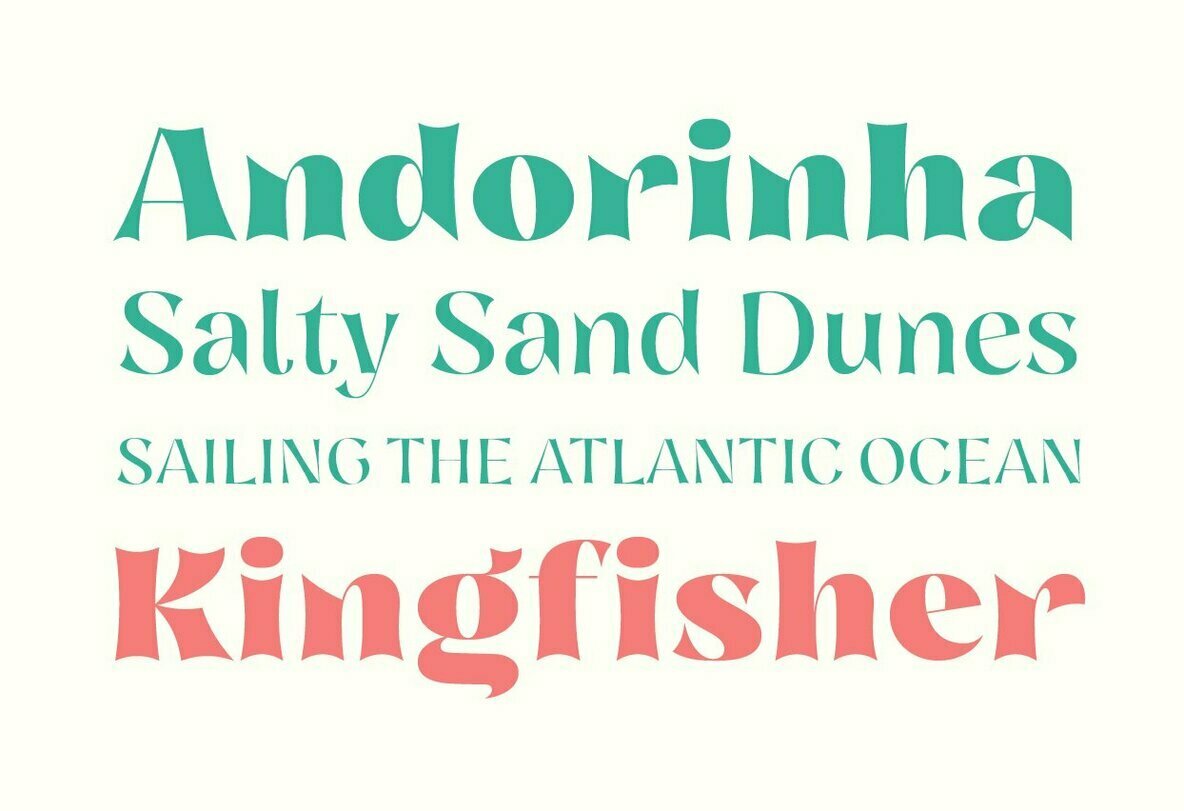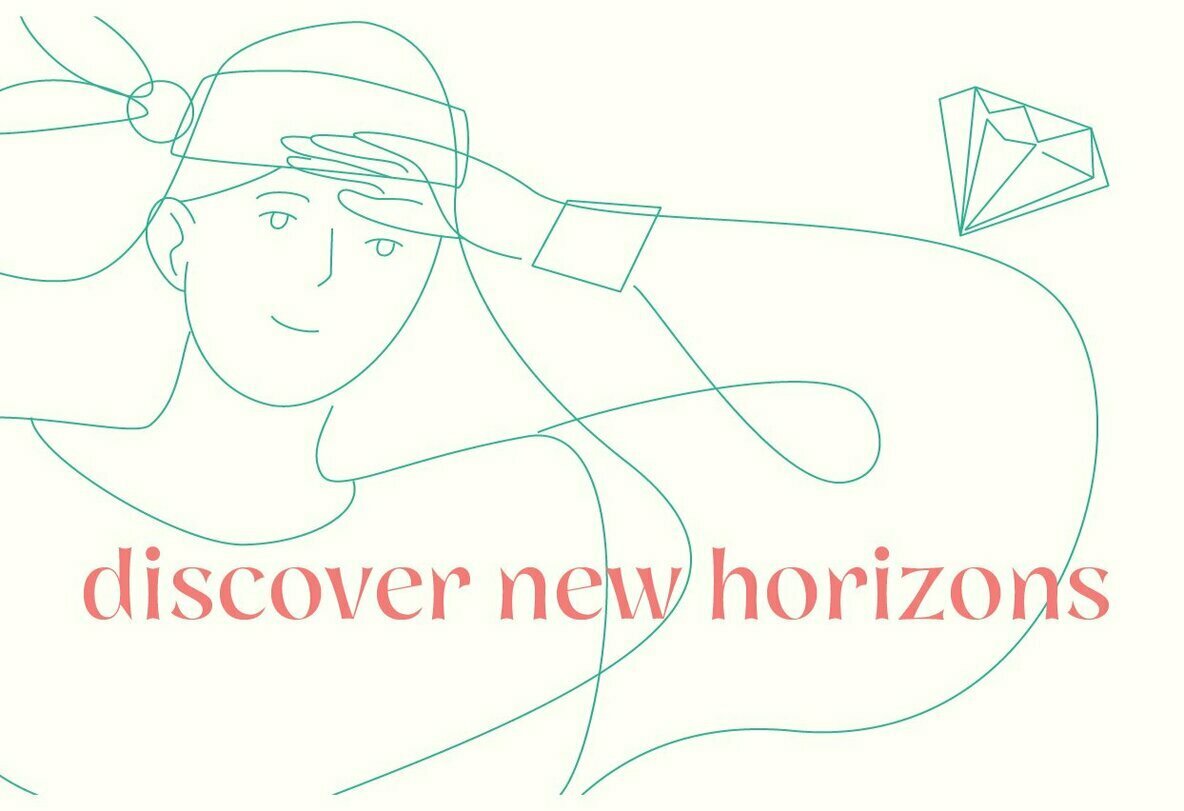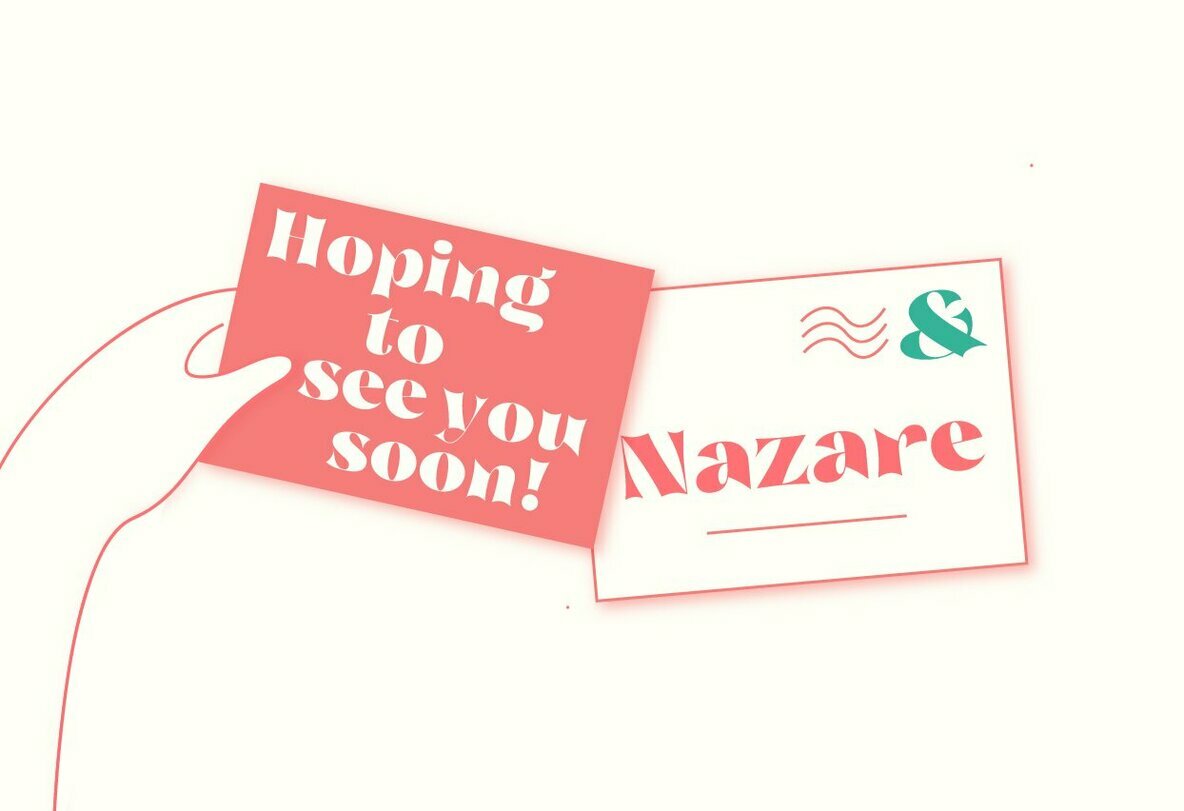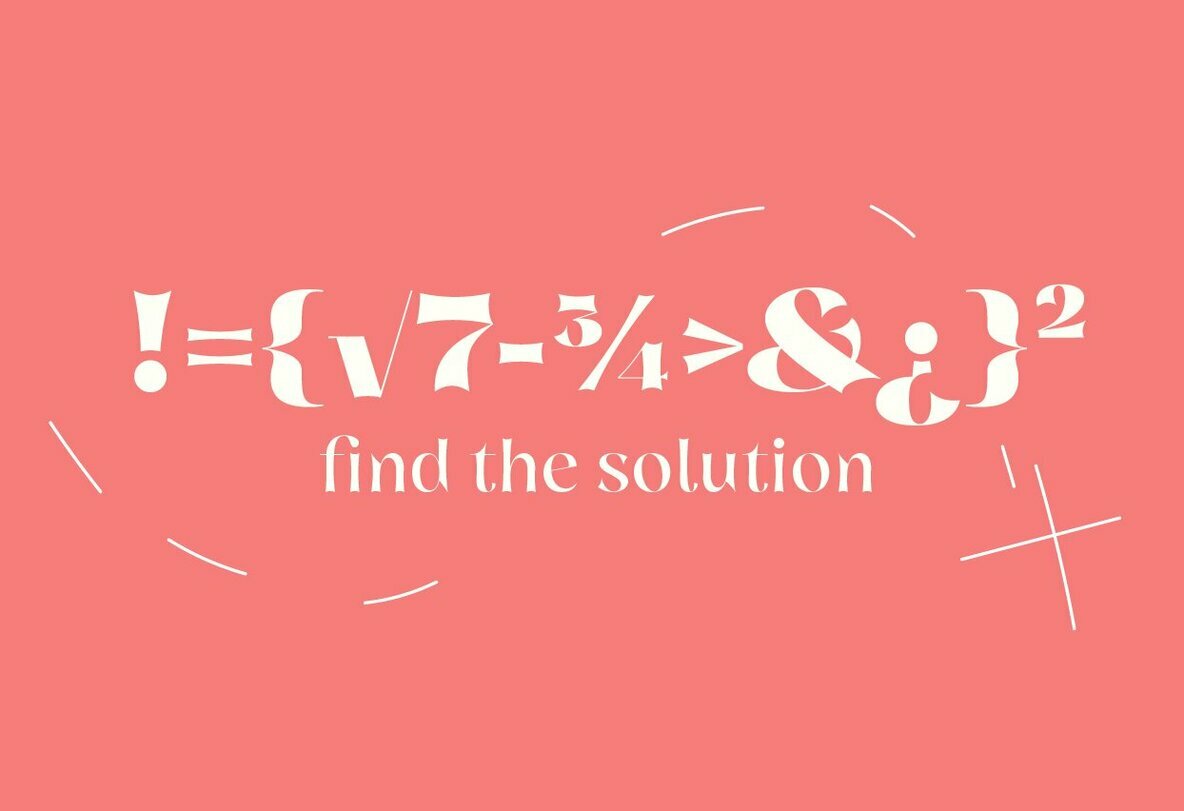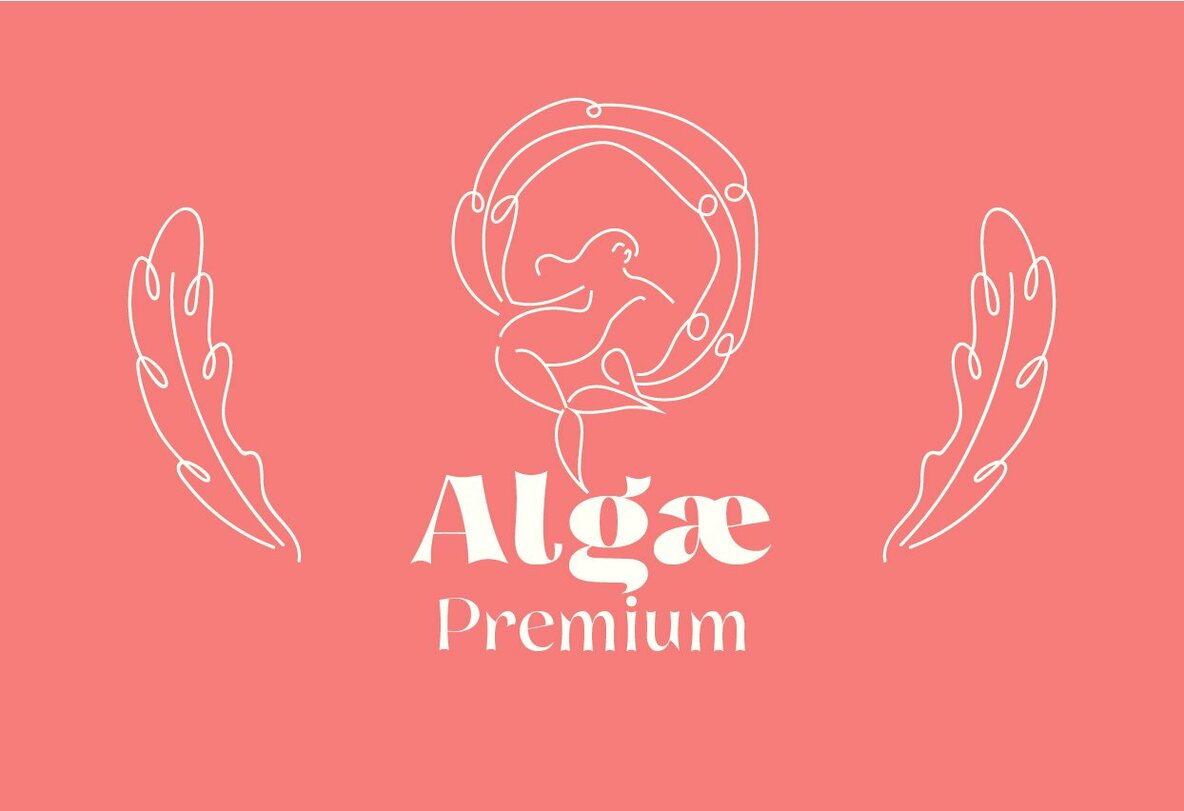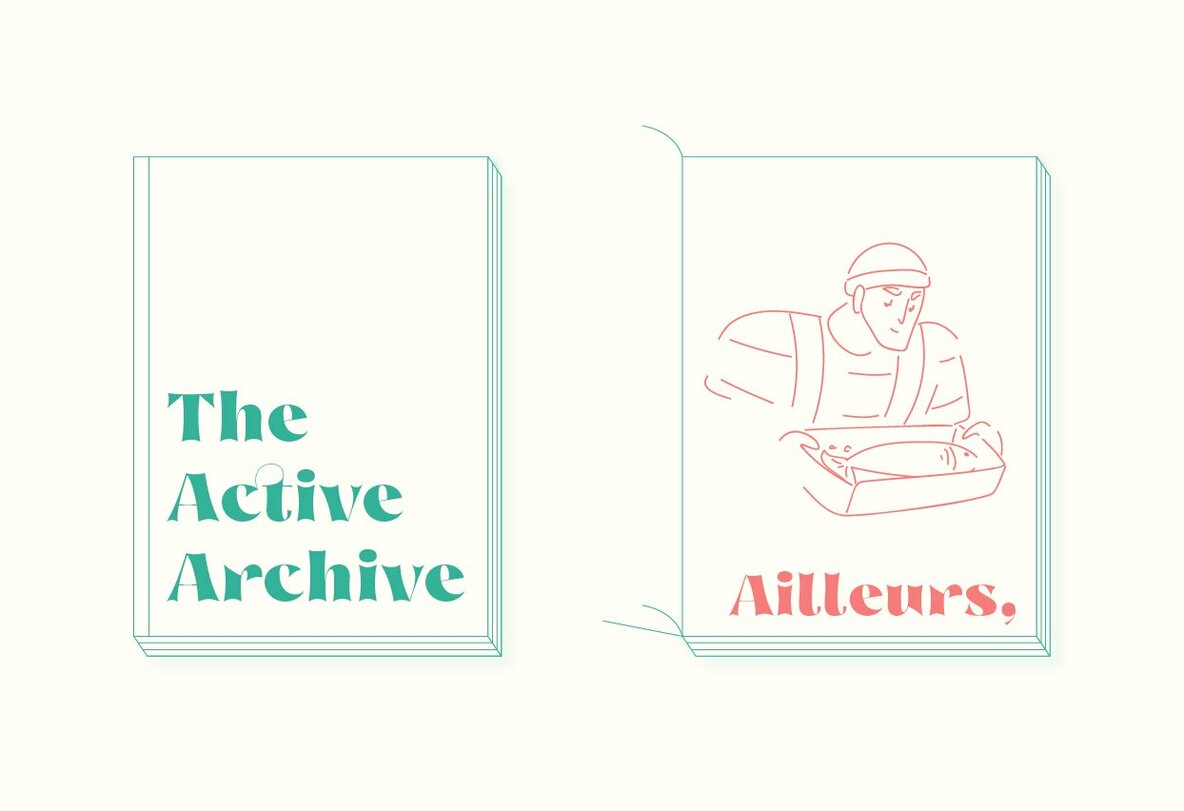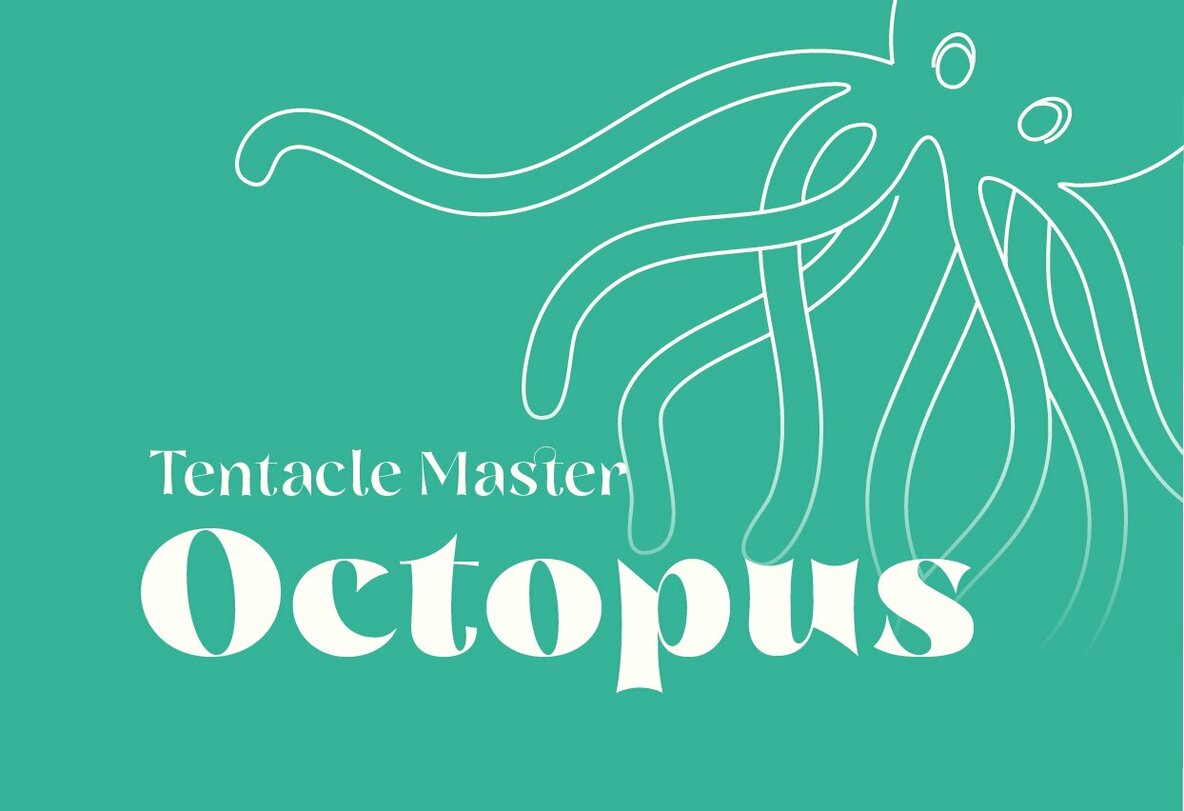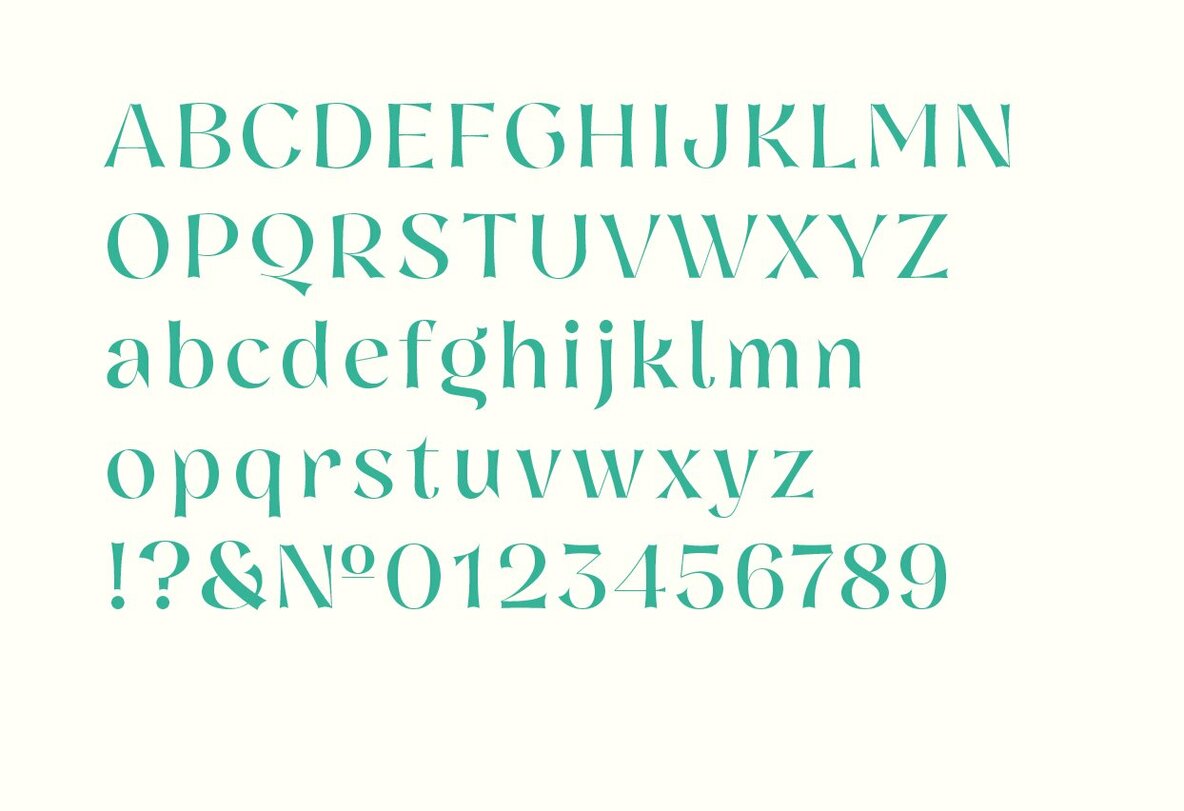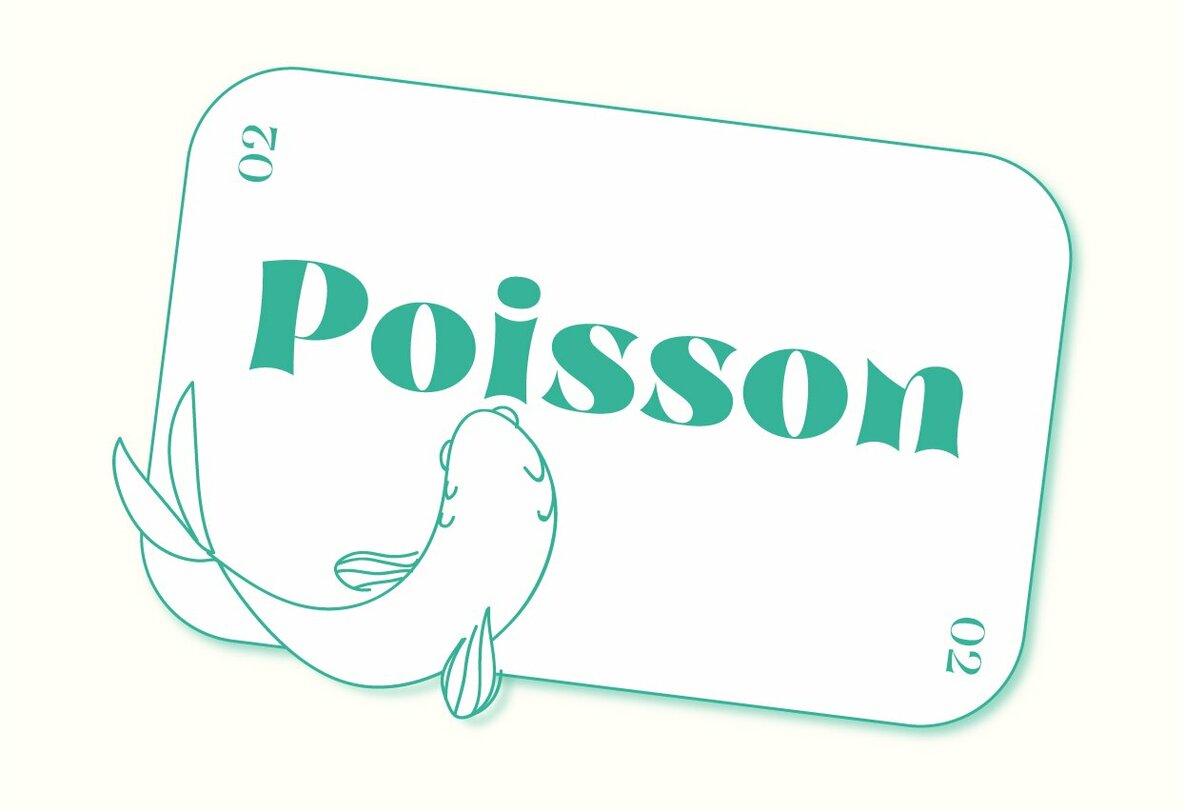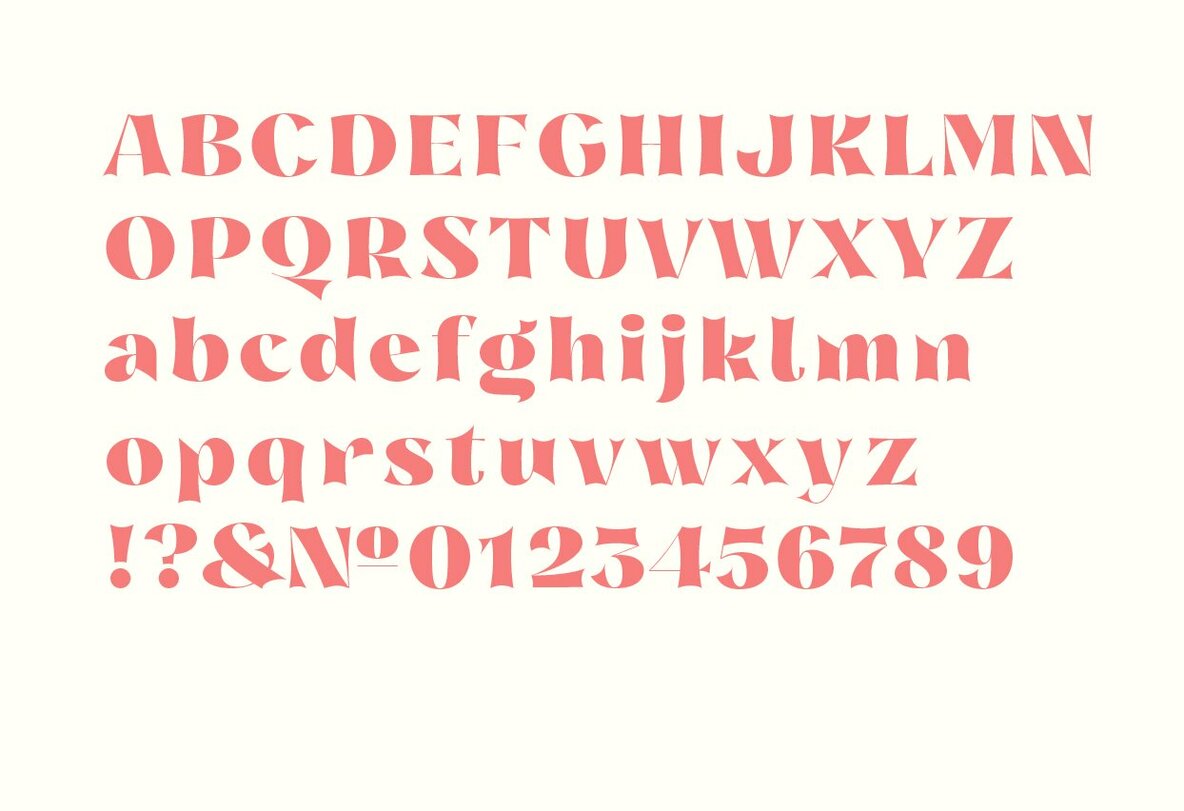
Nazare Exuberant Font
Nazare Exuberant is the Poster version of Nazare. This version makes the vintage design more elegant and luxurious.
It has super high contrast and the semi-serifs were turned into opulent serifs. Some shapes were redesigned by adding a slight calligraphic feel, making it even more vibrant. This way this design got more organic, more human, more serious, more trustworthy and more luxurious.
This is the design for your posters, headlines and actually anything where the letters have a big point size. If you need a more text suitable version you can always use the original Nazare.
Another feature is the insertion of some Opentype features: Ligatures were added as well as old style numbers.
With its six weights you will have plenty of room for many variations. From the Regular that focus more on elegance to the Heavy that focus more on the lavishness. Regardless of which style you choose Nazare Exuberant is so unique that your designs will not remain unnoticed.